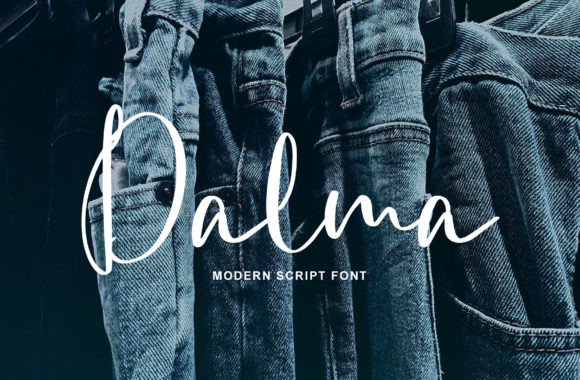
Introducing Dalma Font – An Enchanting Dance of Curves, Perfect for Business Letters and More!
Journey into the world of Dalma Font, a brush script typeface that exudes a lively, contemporary flair. Its cursive and graceful strokes captivate the essence of authentic handwriting, adding a touch of elegance and authenticity to your business correspondence.
Embark on a visual adventure as Dalma's characters flow effortlessly across the page, leaving a trail of beauty and sophistication. Each letter is meticulously crafted to convey a sense of individuality and charm, ensuring your business letters stand out from the mundane.
With Dalma Font, discover a symphony of styles that blend seamlessly with your brand's personality. Whether you seek a playful touch or a classic elegance, Dalma's versatility knows no bounds. Its adaptability extends beyond business letters, making it a perfect fit for invitations, greeting cards, logos, branding materials, and social media posts.
Let Dalma Font ignite your creativity and transform your words into captivating works of art. Its effortless flow and modern aesthetic will elevate your designs, leaving a lasting impression on clients, colleagues, and customers alike.
Don't settle for ordinary fonts. Choose Dalma, the dance of curves that brings life to your business letters and beyond. Experience the magic of Dalma today and unlock a world of captivating designs!